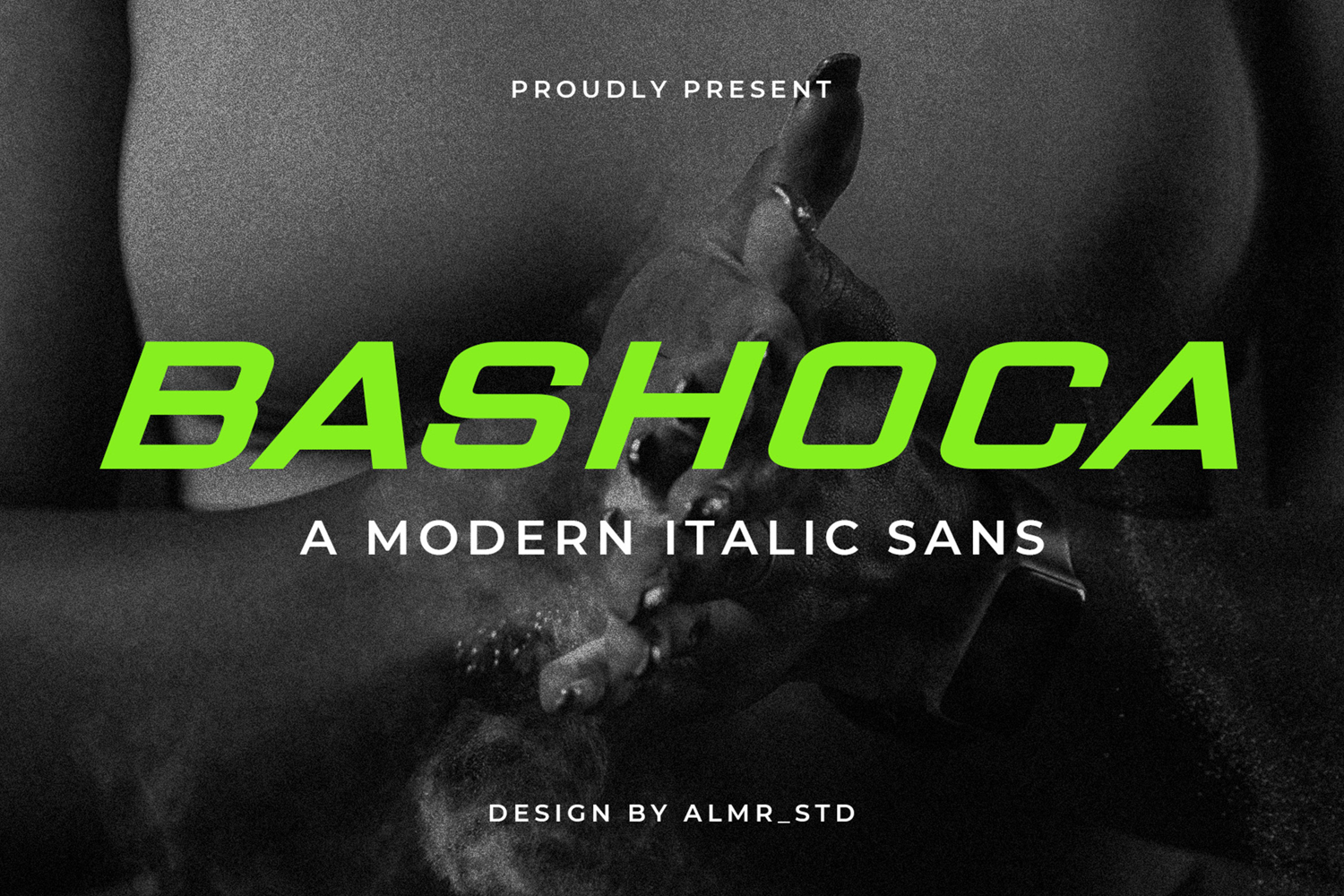
Bashoca
Introducing Bashoca - Modern & sporty san serif font. Bashoca is a display, italic modern & sporty san serif font, This type of font is very suitable for your various needs such as branding projects, logos, social media posts, advertisements, labels, product packaging, photography, wedding designs, watermarks, invitation product designs, stationery, and any project.